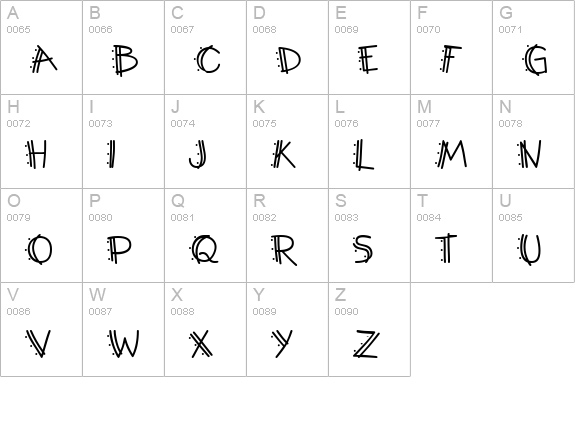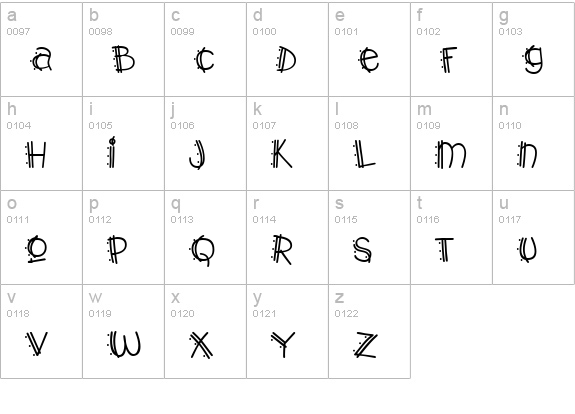
The Y2K PopMuzik AOE font is a vibrant and playful typeface that perfectly captures the essence of the early 2000s pop culture. With its bold and dynamic design, this font exudes energy and nostalgia, making it ideal for projects that aim to evoke a sense of fun and excitement. Featuring a mix of retro and modern elements, Y2K PopMuzik AOE is a versatile font that can be used for a variety of design purposes, from posters and album covers to social media graphics and branding materials. Its eye-catching style is sure to draw attention and make any project stand out. Best of all, Y2K PopMuzik AOE is completely free to download at FontsMarket.com. Whether you're a designer looking to add a touch of nostalgia to your work or simply a fan of the Y2K aesthetic, this font is a must-have addition to your collection. Download it today and let your creativity run wild with the vibrant and energetic vibes of Y2K PopMuzik AOE font.